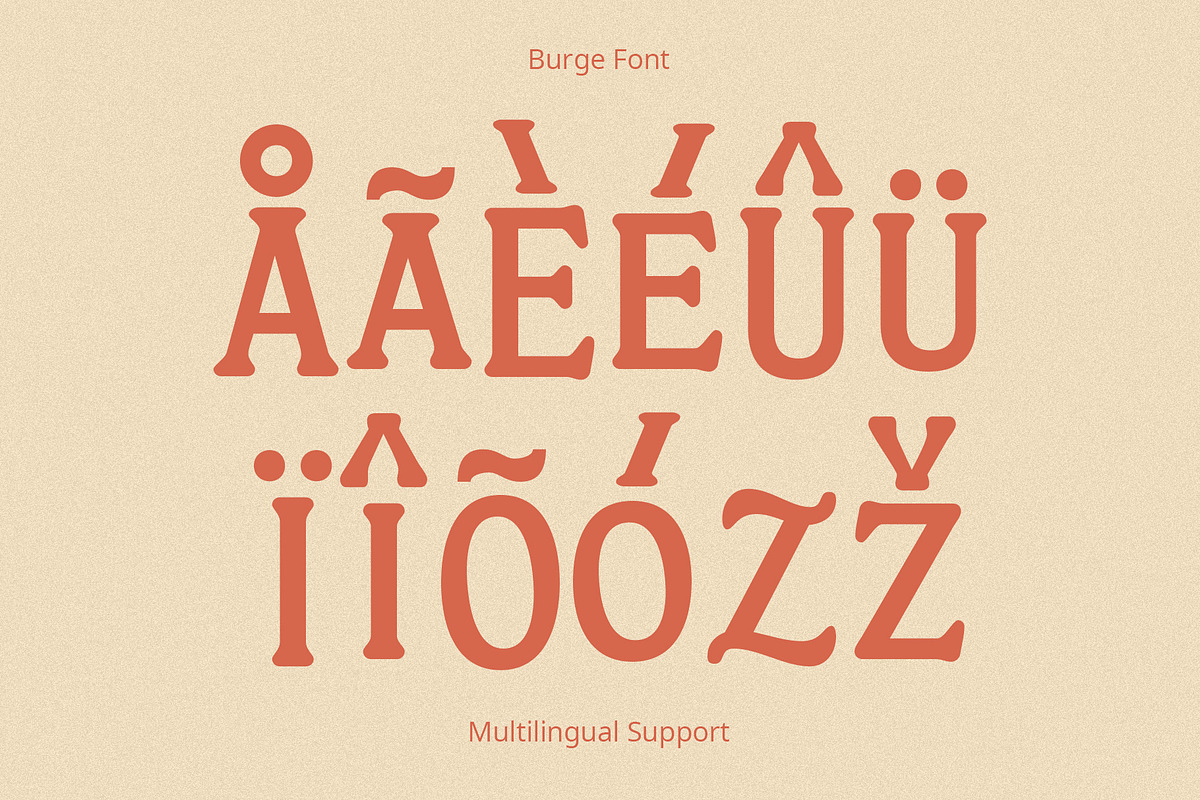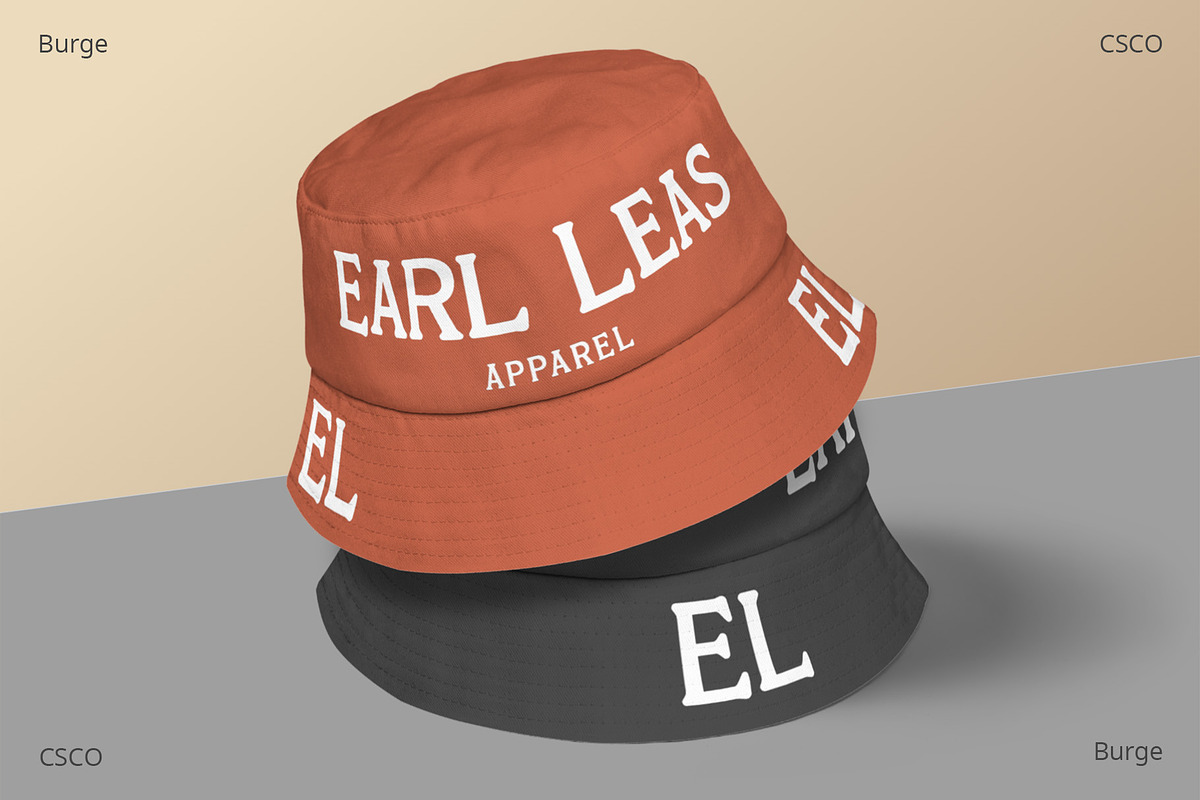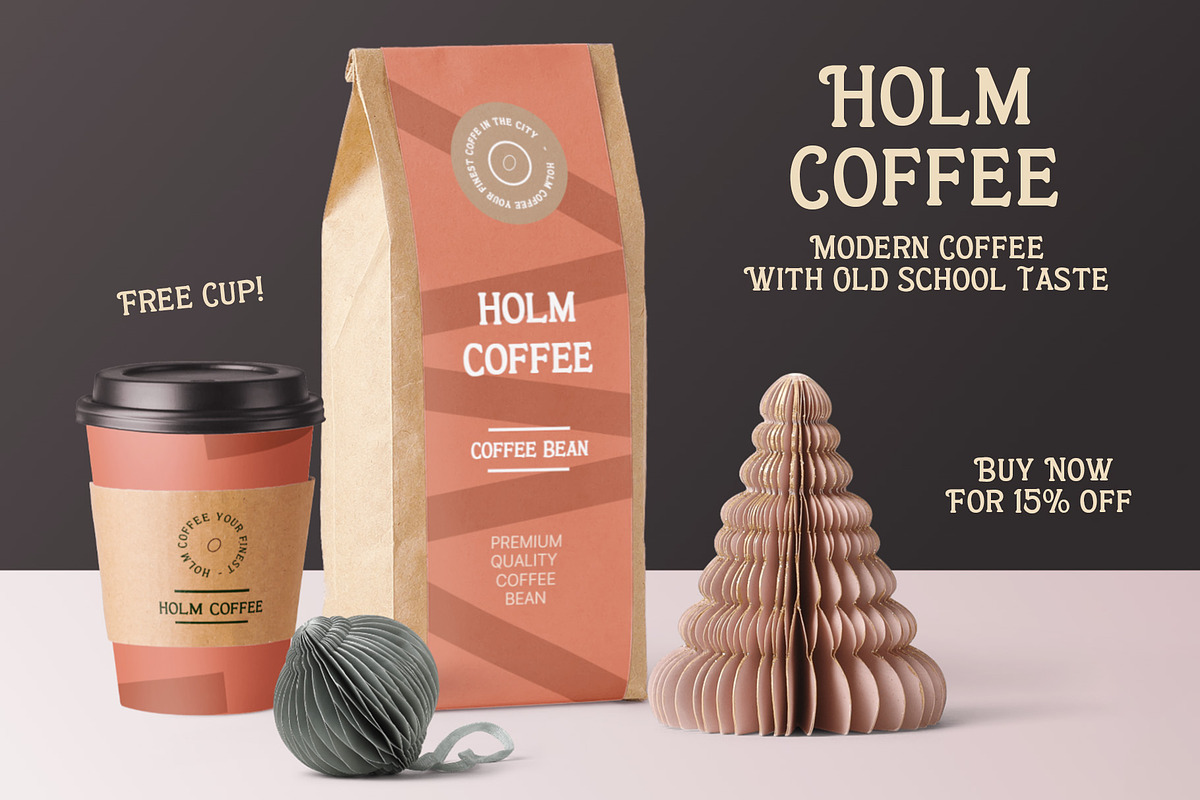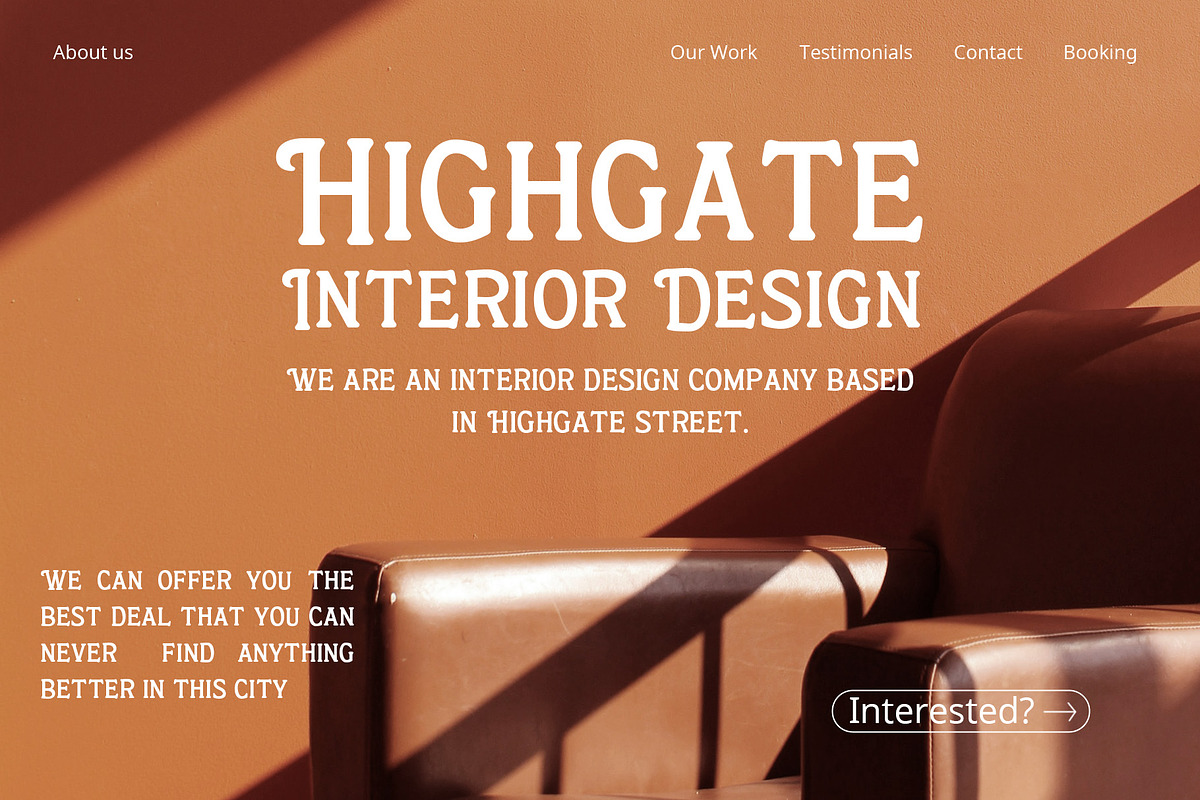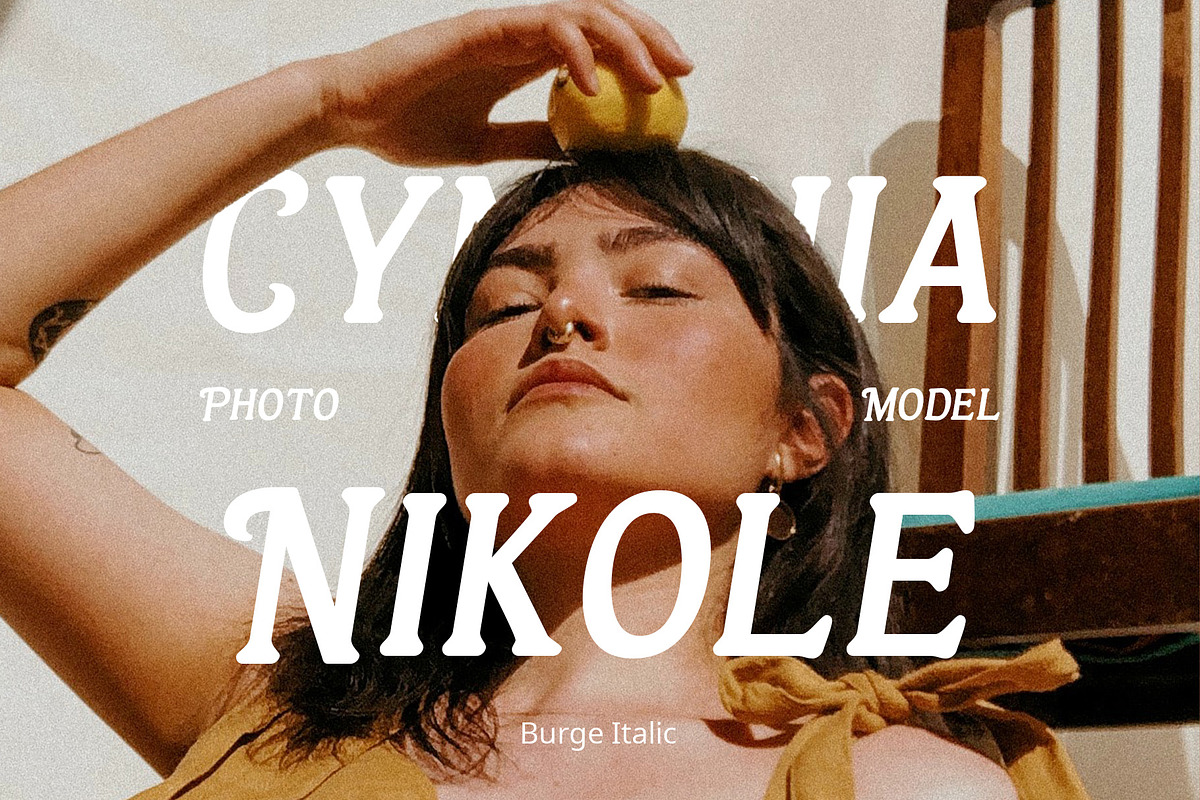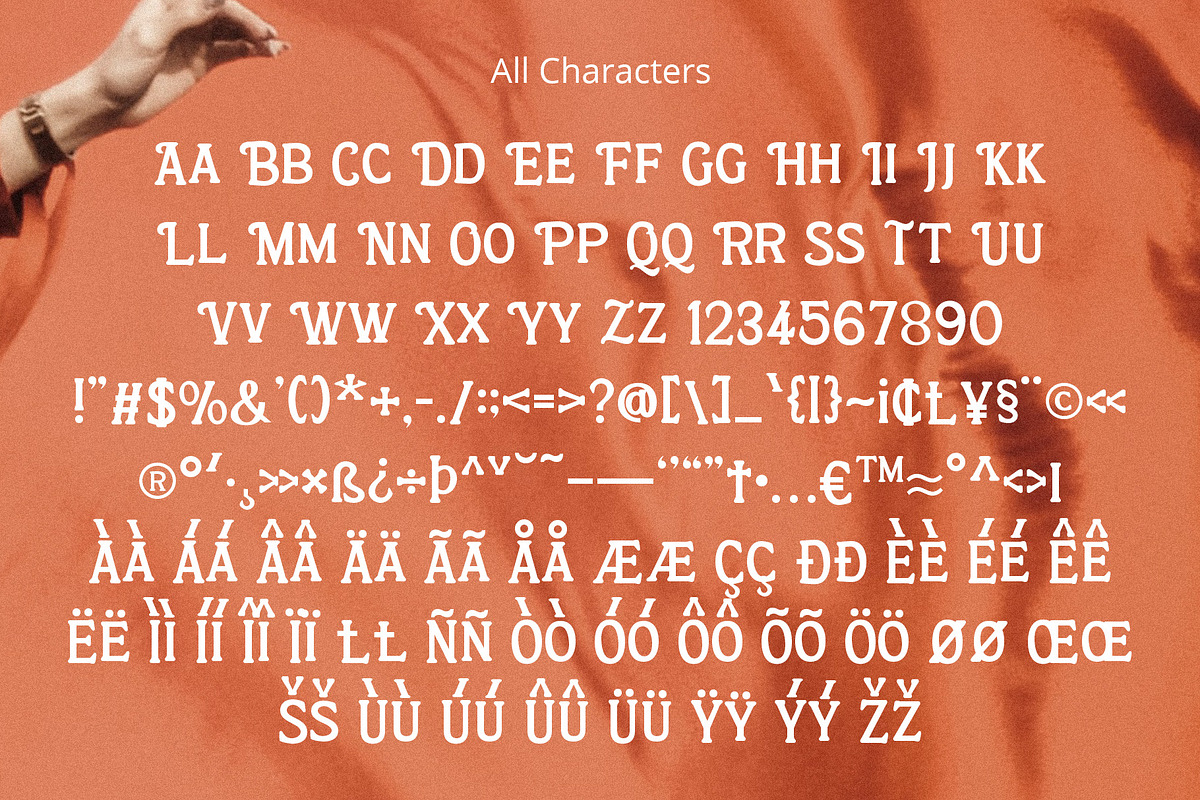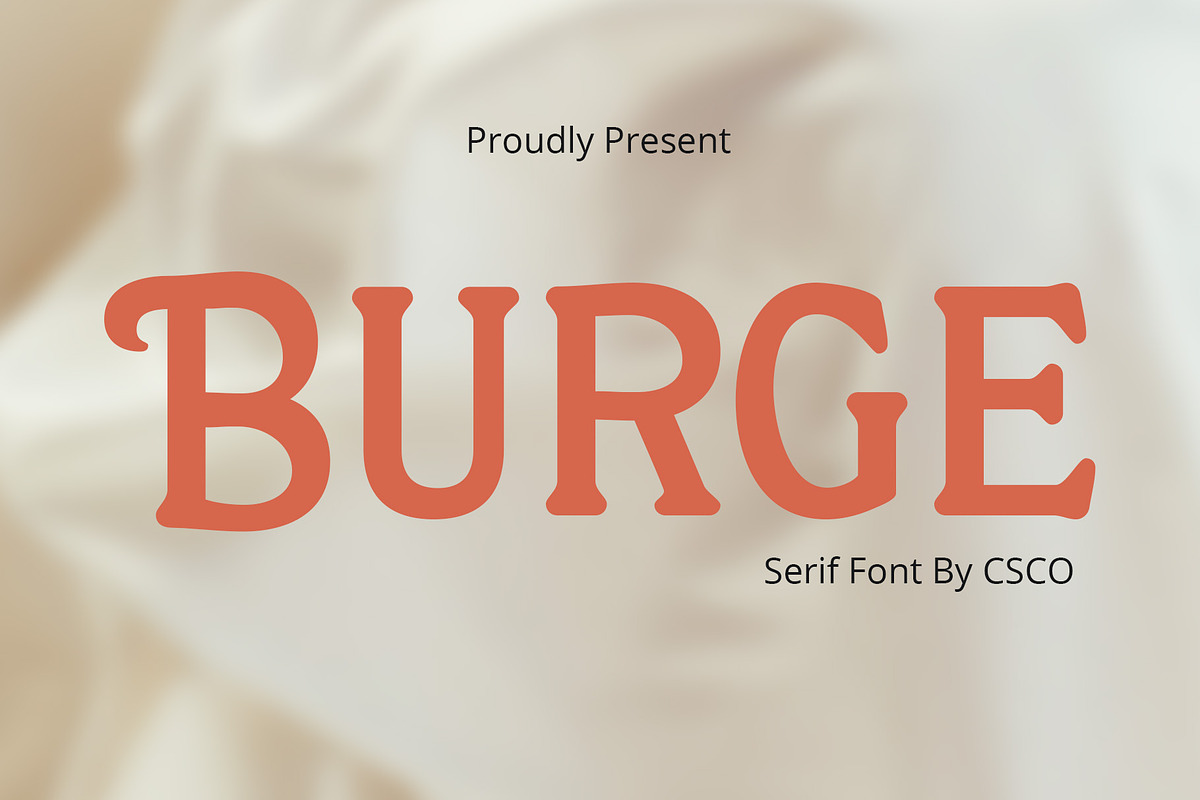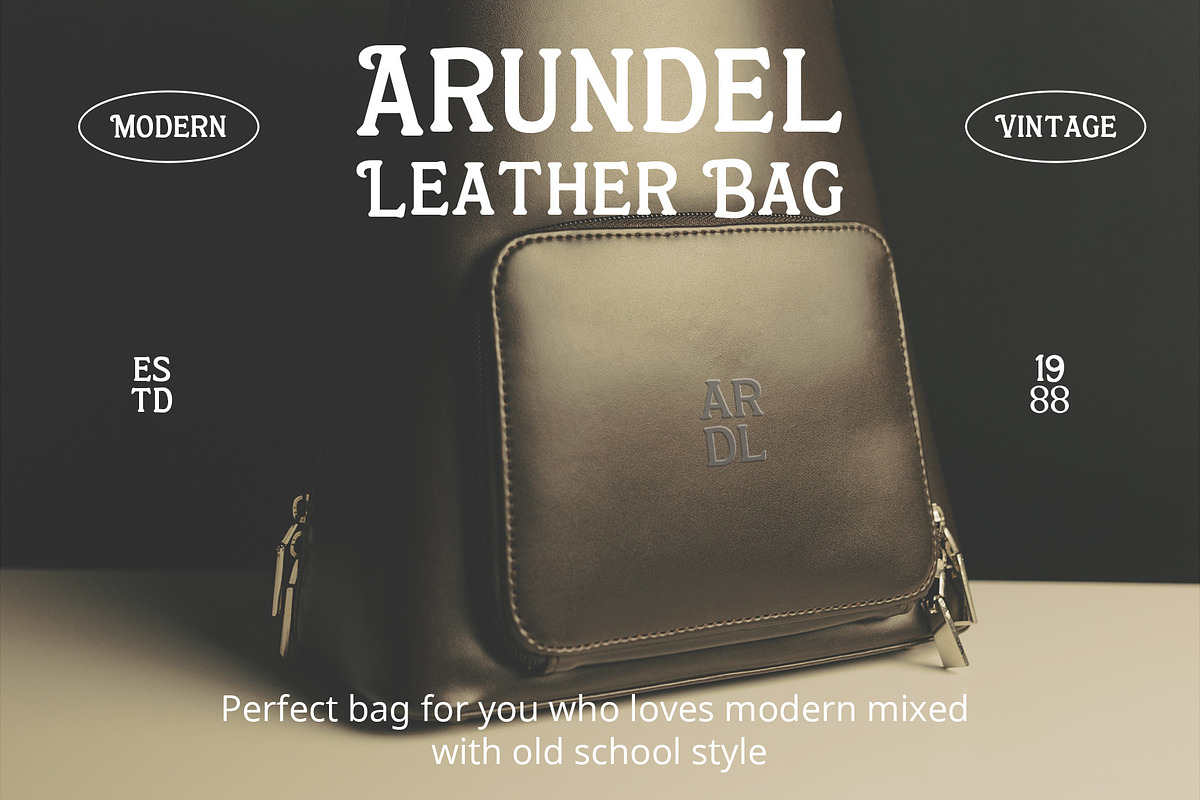
Burge – Cute Serif
Introducing Burge – Cute Serif Font Meet Burge Cute Serif Font, the adorable serif font with round serifs that adds a charming touch to your designs.
Playful and Cute Design Burge features soft, round serifs that give it a playful and cute appearance. Its letterforms are carefully crafted to evoke a sense of charm and friendliness. This font is perfect for creating eye-catching titles that capture attention.
Versatile Usage Burge’s versatility shines in a variety of design projects. Whether it’s used in posters, invitations, or social media graphics, this font adds a delightful flair. Its rounded serifs ensure legibility even at smaller sizes.
- Burge Regular
- Burge Italic